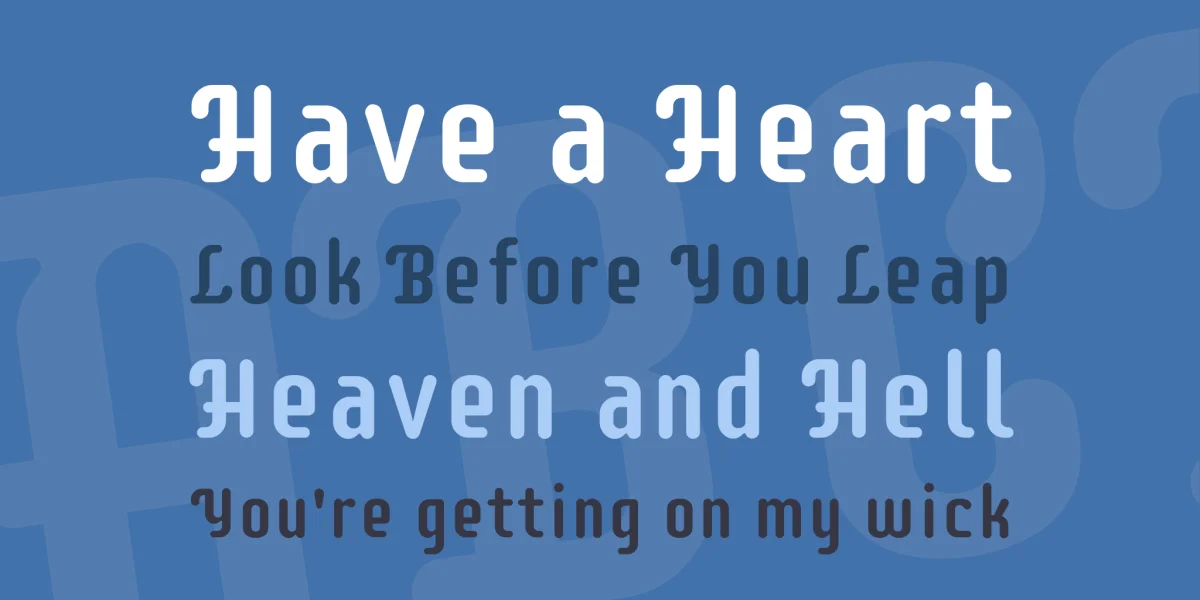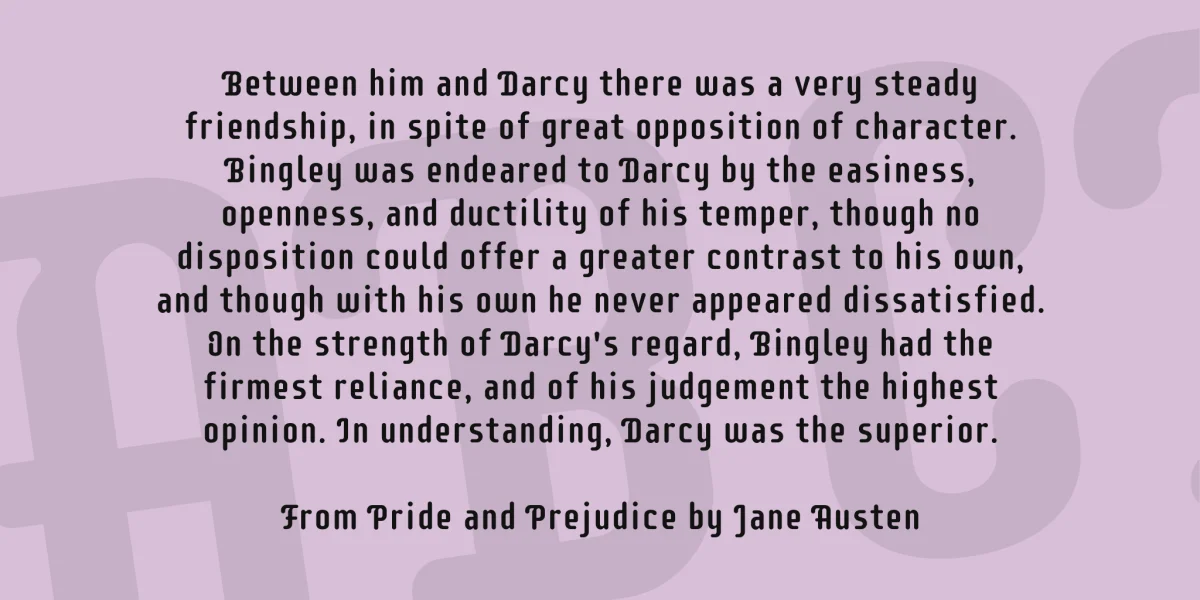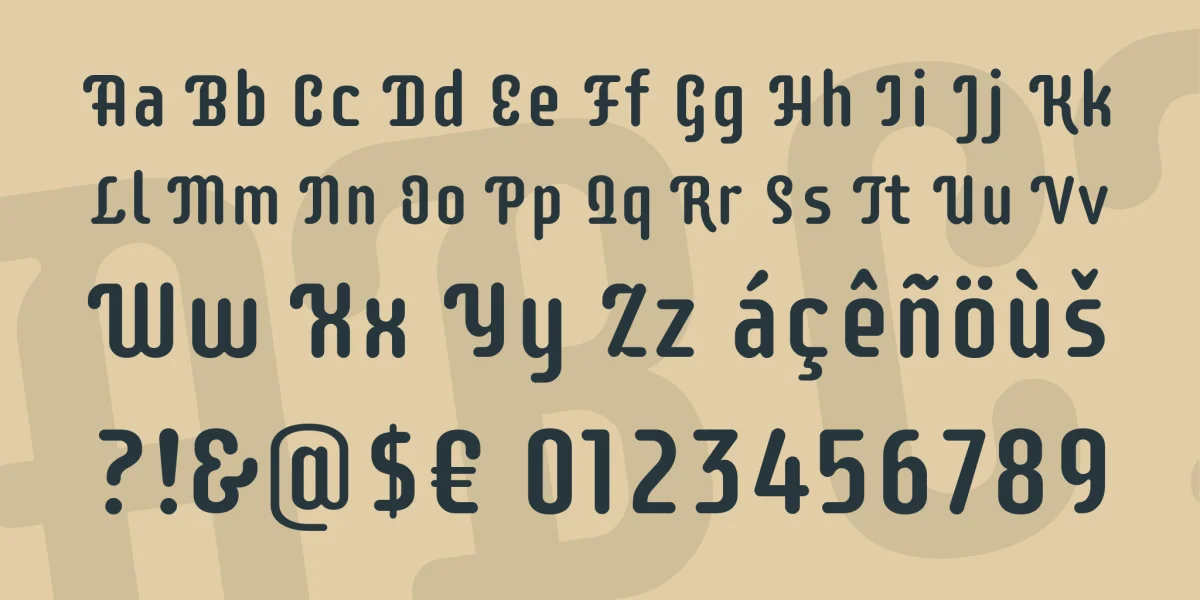
Supermercado One is a low contrast semi geometric typeface inspired by naive industrial letters. Supermercado One is not a typical mechanical sans because it incorporates unexpected swashes, especially in its capitals. Supermercado One is surprisingly versatile: it is certainly quite distinctive when set at larges sizes but it can also work at fairly small sizes and in blocks of text.